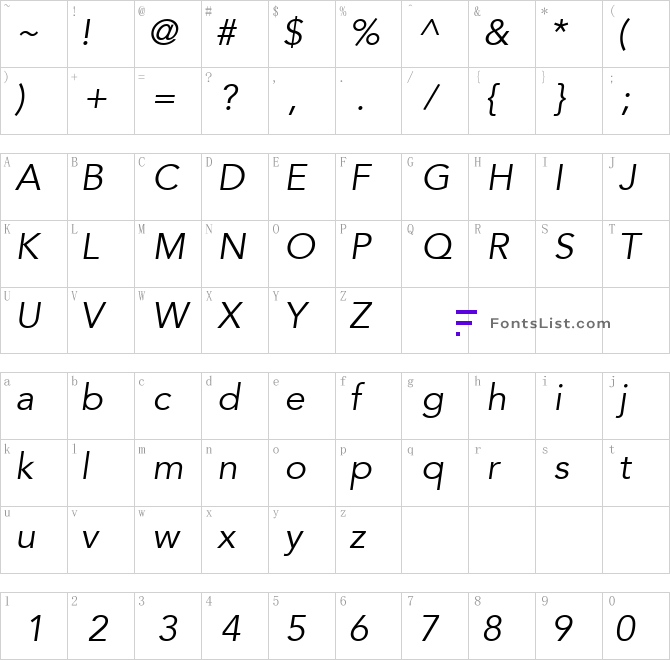
- Font Name:Avenir LT 45 Book
- Subfamily:Linotype Library GmbH: Avenir LT 45 Book Oblique: 2002
- Full Name:Avenir LT 45 Book Oblique
- PostScript:AvenirLT-BookOblique
Avenir-LT-45-Book-Oblique.ttf is a very beautiful artistic font, Avenir-LT-45-Book-Oblique.ttf is widely used in the design and printing of various books and pictures,Avenir-LT-45-Book-Oblique.ttf has a strong visual impact,Avenir-LT-45-Book-Oblique.ttf is a commonly used font in newspapers, magazines and books, and is used in posters, e-commerce Poster design, store design, logo design, font design and other fields.Avenir-LT-45-Book-Oblique.